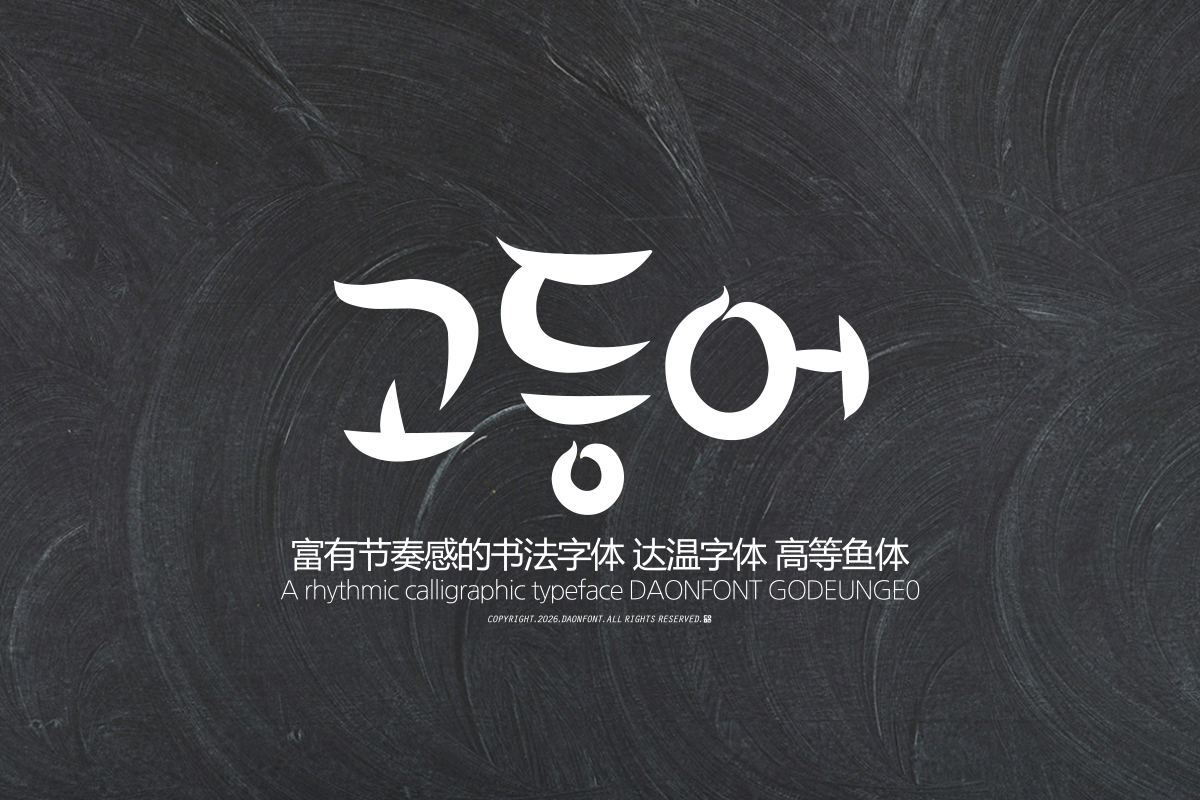
DAON GODEUNGEO(M)
'GODEUNGEO' is a calligraphy typeface that captures a friendly and distinctive atmosphere. Just like the cheerful image suggested by its name, it is designed to imbue each individual letter with a fun rhythm and strong character. Going beyond simply conveying information, it creates an impressive calligraphy design that remains memorable the moment you see it.